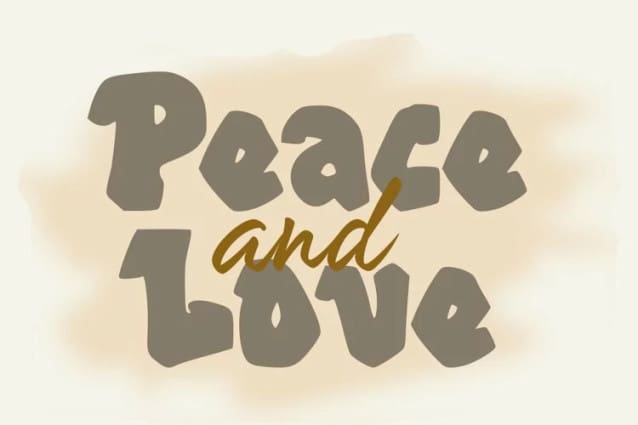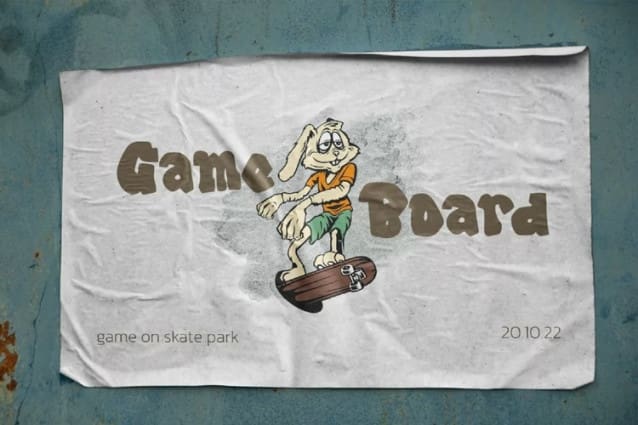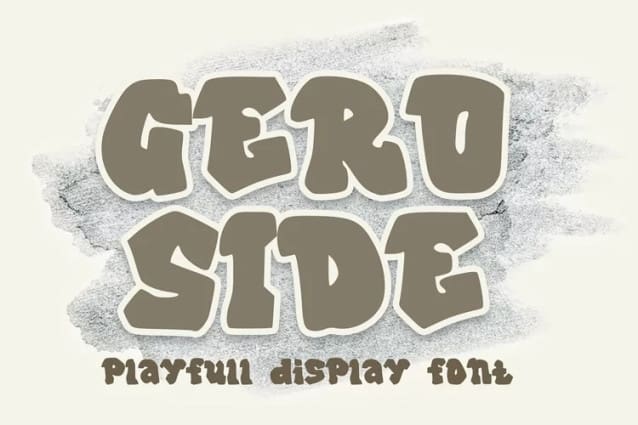
Geroside Display Font
Geroside Display Font, is a cute and cool Bold Display Font. This font is made with a cool graffiti theme and is suitable for various creative ideas such as logos, business, crafts, etc.